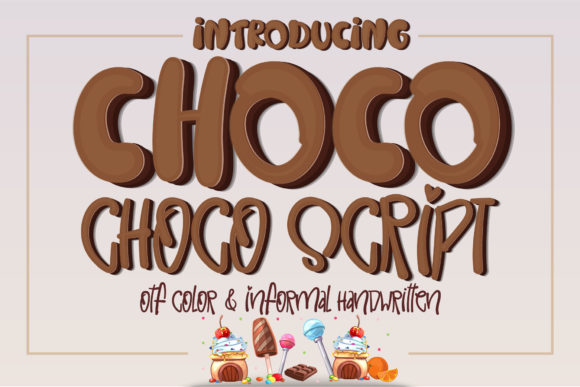
Step into the enchanted realm of Choco Script, where handwritten elegance and playful charm intertwine. This captivating script font from Nobu Collections exudes a disarming warmth that will infuse your designs with a touch of whimsy and delight.
Choco Script is the epitome of versatility, effortlessly adapting to a myriad of creative endeavors. Its enchanting characters dance across the page like tiny sprites, bringing life to cartoonish fantasies, children's stories, and any creation that yearns for a joyful spark.
With its impeccable Latin script, Choco Script empowers you to craft messages that resonate with a global audience. Embrace this font's playful spirit and watch as your designs transform into vibrant expressions of creativity and imagination.
Indulge in the enchanting world of Choco Script, where your words will sing with a touch of magic and your designs will radiate with a captivating allure. Embrace the power of this enchanting font, and let your creativity soar to new heights.